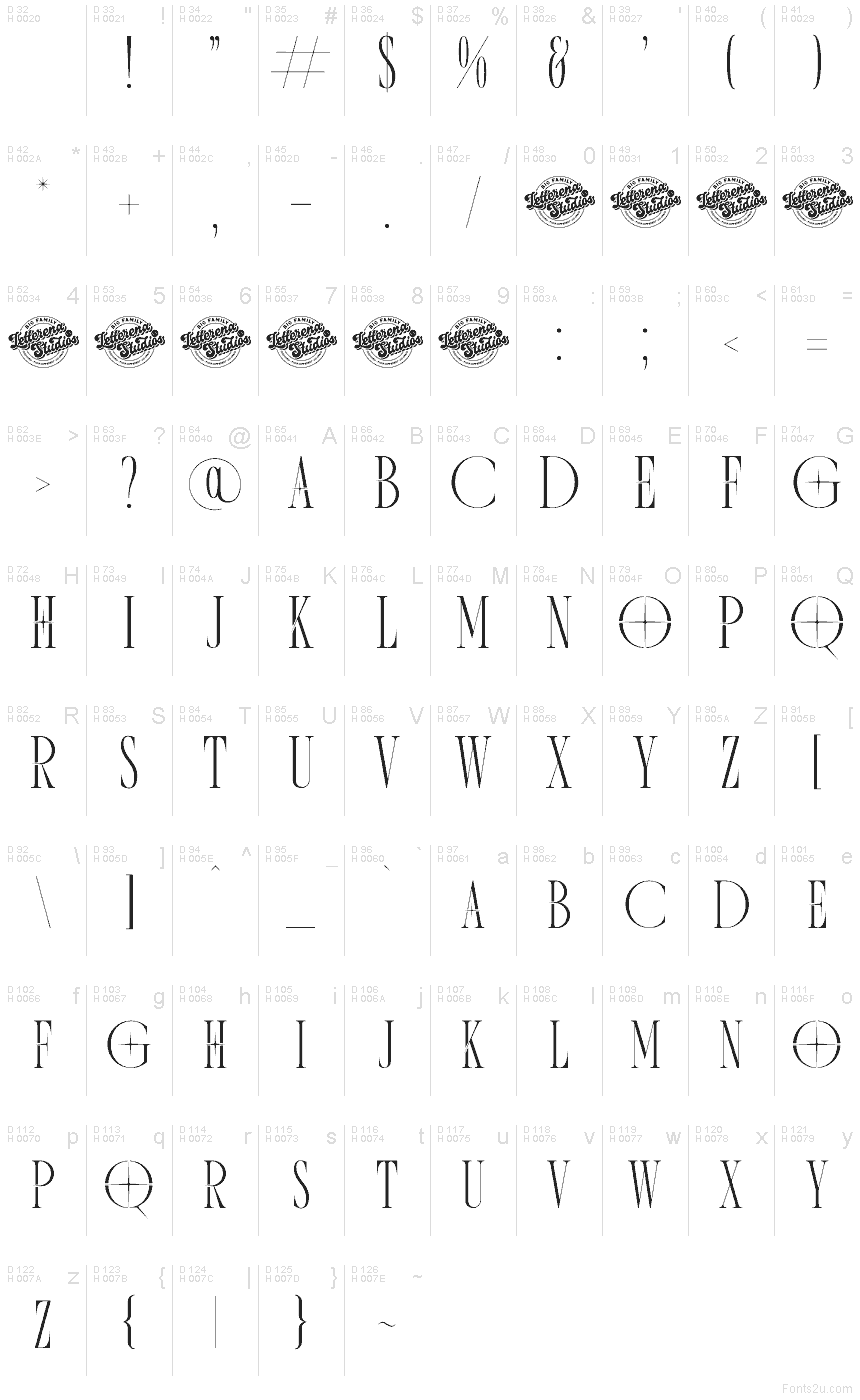
Motague DEMO VERSION
Motague font by Letterena Studios is a free serif typeface. Its calling card is unmistakable: circular, crosshair-like counters that turn every word into a focal point. Tall proportions, razor-fine strokes, and pin-sharp serifs give it a cool, porcelain bite—elegant but a little enigmatic. The rhythm feels tight and vertical, so headlines snap into place with a clean, sculpted presence.
Using Motague, you get instant drama for fashion branding, perfume labels, editorial mastheads, luxury posters, book covers, and event invitations. The target-like counters act as visual anchors, creating pause and intrigue while the slender forms keep things airy. Let this free font run large to show off the details, and pair it with a quiet sans for body copy to keep the spotlight where it belongs.